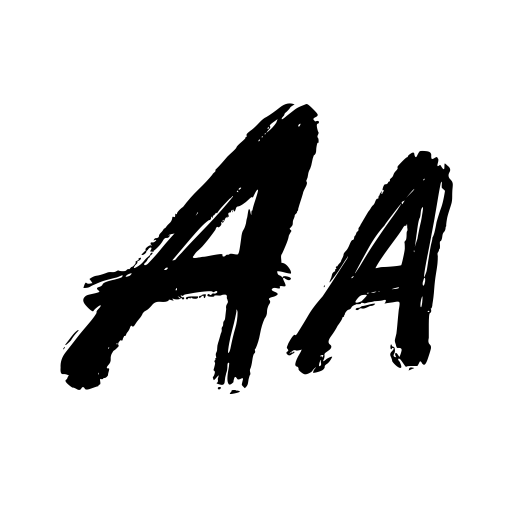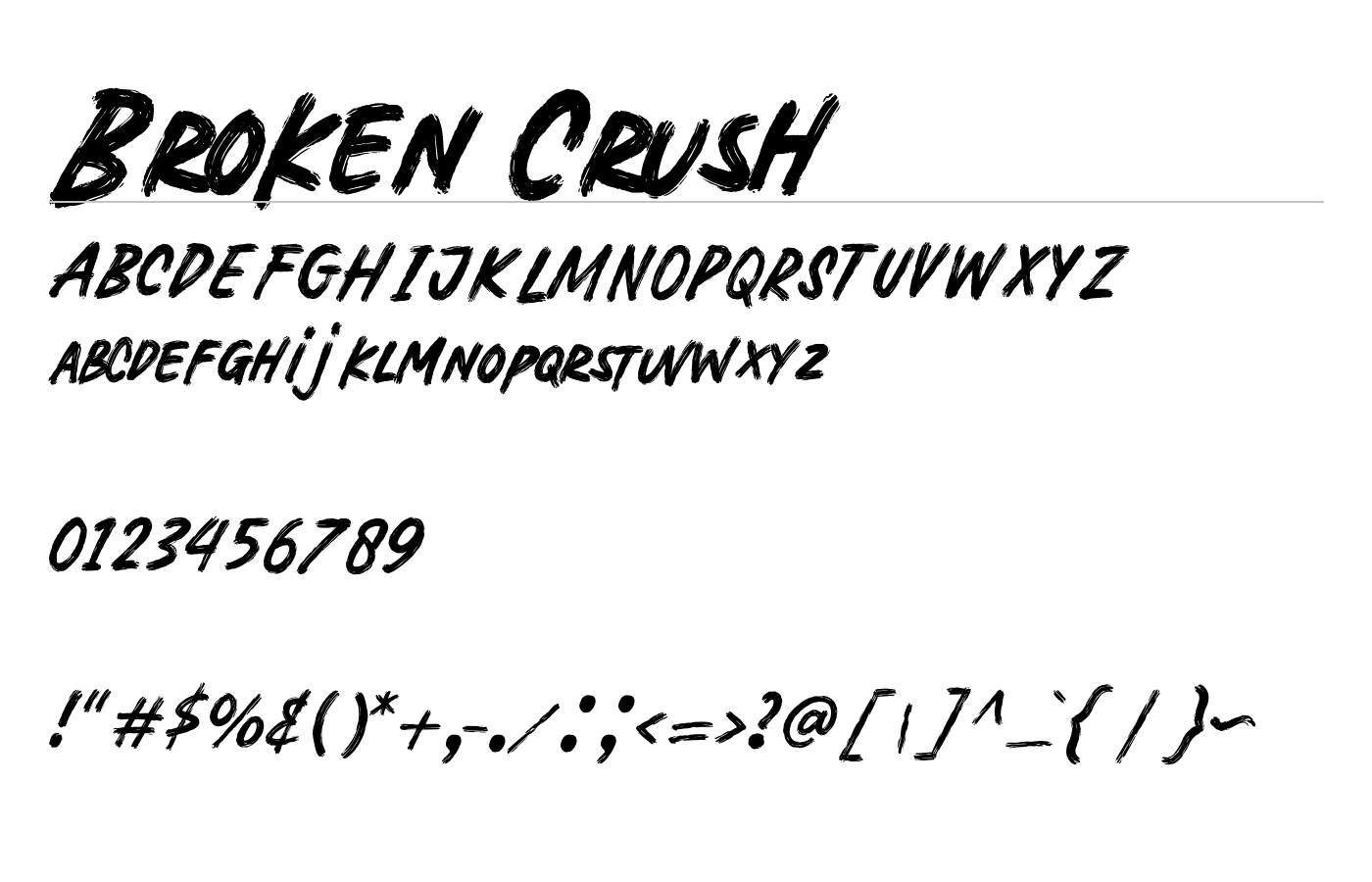
Broken Crush is a bold, brush script font with a rough, textured appearance that gives it a dynamic, hand-painted feel. It features irregular strokes and a casual, energetic style, making it perfect for designs that want to convey creativity, spontaneity, and an urban edge. This font works great for eye-catching headlines, posters, and branding that calls for a raw, artistic vibe.
Broken Crush Font
About Broken Crush Font